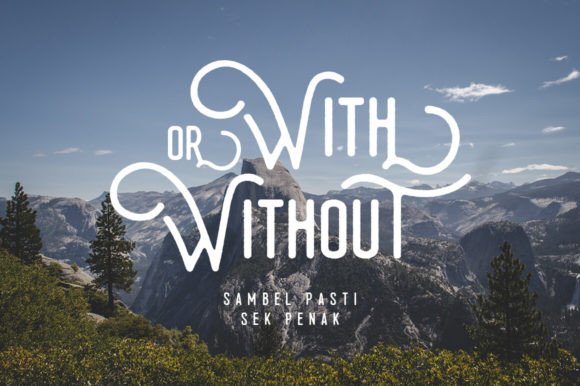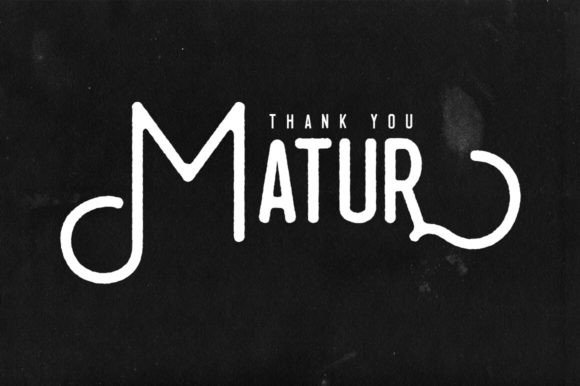
Introduction to Koebis Font
Koebis Typeface Handrawn typeface with a modern stylist feel.
You can use this font for headlines, wedding invitations, book cover titles, logos, photography watermarks, etc .
Koebis Font offers exceptional quality and versatility, making it a valuable addition to your design toolkit. Whether you’re creating for personal projects or commercial use, Koebis Font delivers professional results.